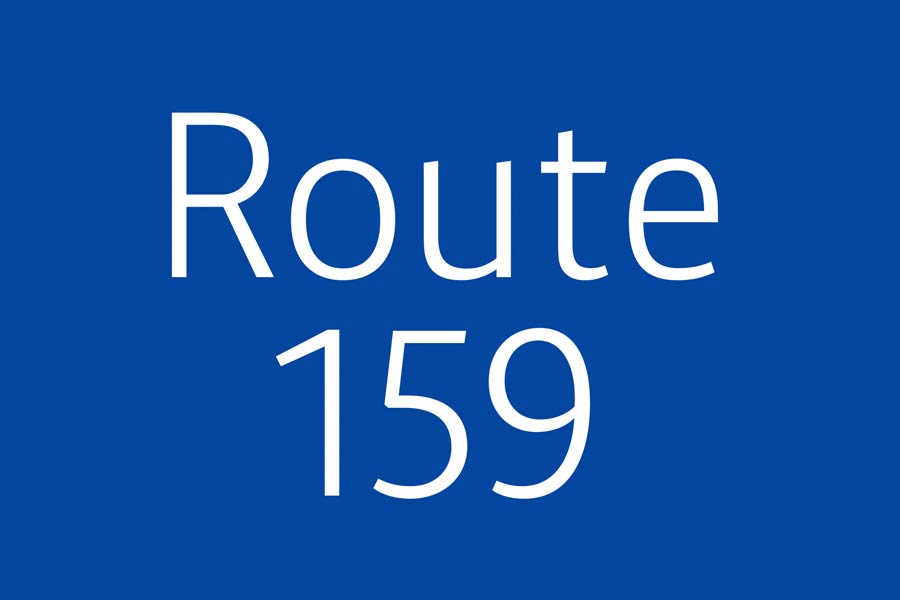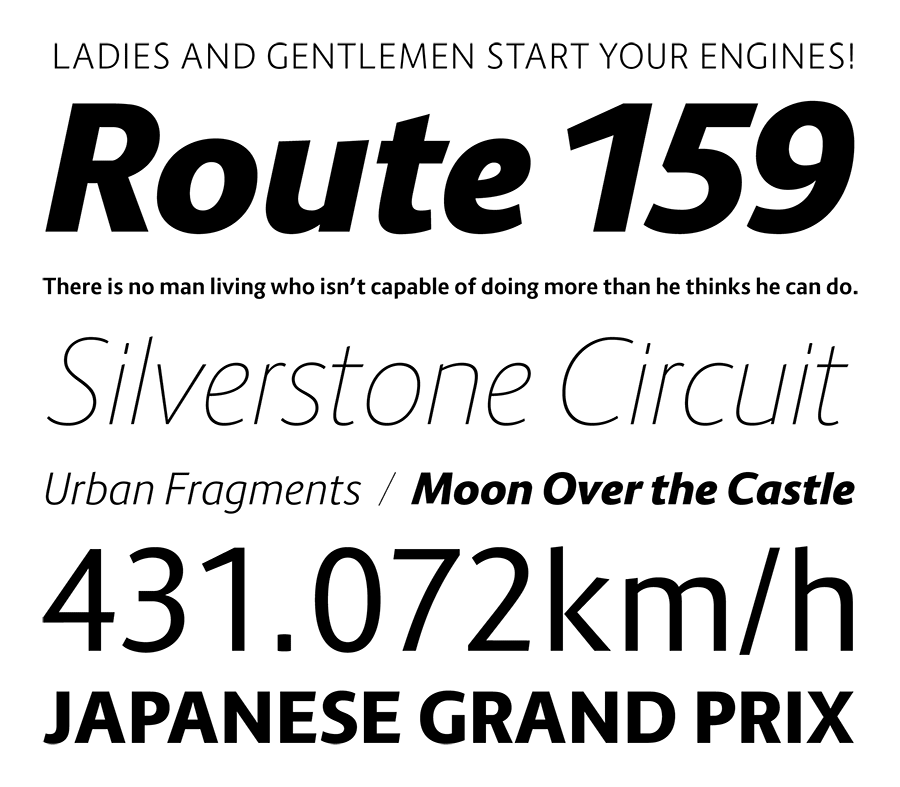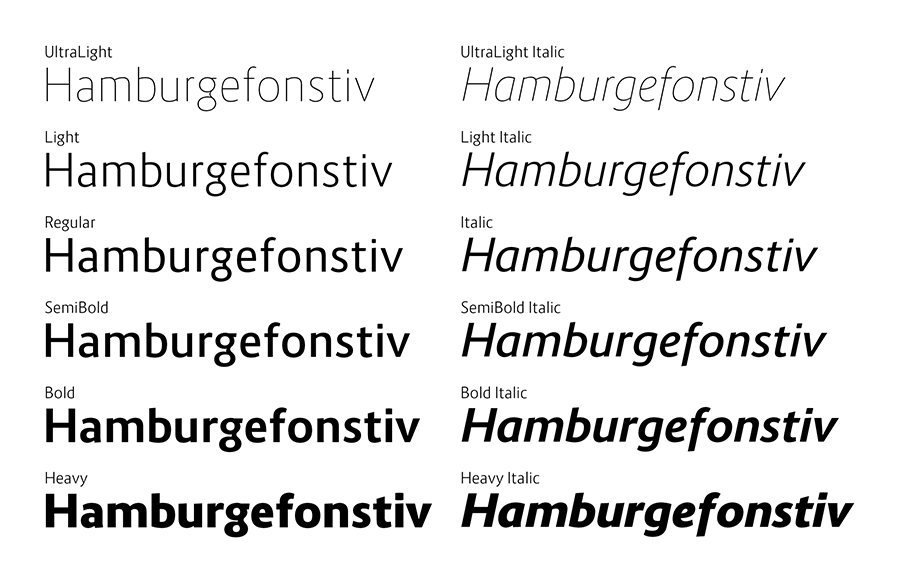
Route 159 is a highly legible sans serif font that comes with 12 styles and is free to download. Created by Sora Sagano, with the experience of creating fonts like Aileron and Vegur, he created this font with the emphasis on readability, notably characters like “b, d, p, q” has bigger counter than his previous font design.
This font family has 6 weights with italic styles, and web font version is also included in the download.